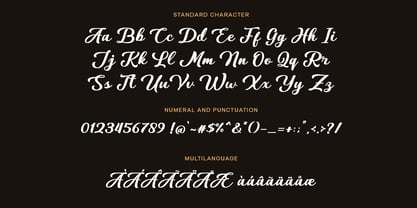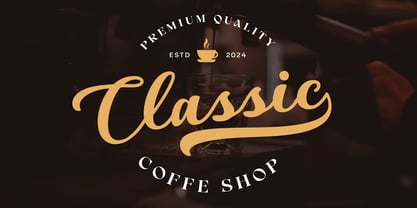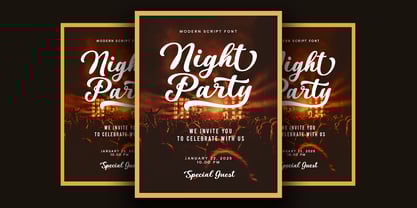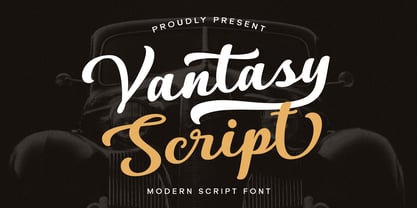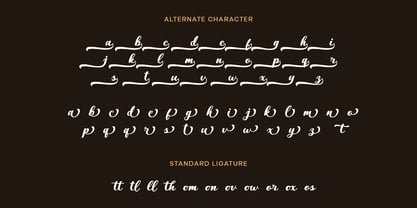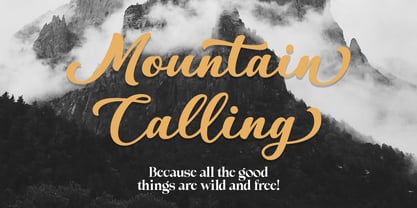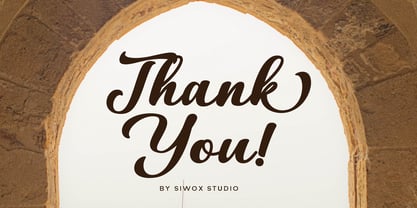
Vantasy Script
by Siwox Studios
The Vantasy Script Font Family was designed by Rizaldi Wandani and published by Siwox Studios. Vantasy Script contains 1 styles. More about this family
Vantasy Script seamlessly blends originality with contemporary style, transforming all your design projects into eye-catching masterpieces. Its distinctive curves and modern flair infuse the font with an irresistible charm, making it not only visually striking but also uniquely engaging for anyone who encounters it. Experience how Vantasy Script can bring a fresh, seductive appeal to your creative endeavors.
Designers: Rizaldi Wandani
Foundry: Siwox Studios